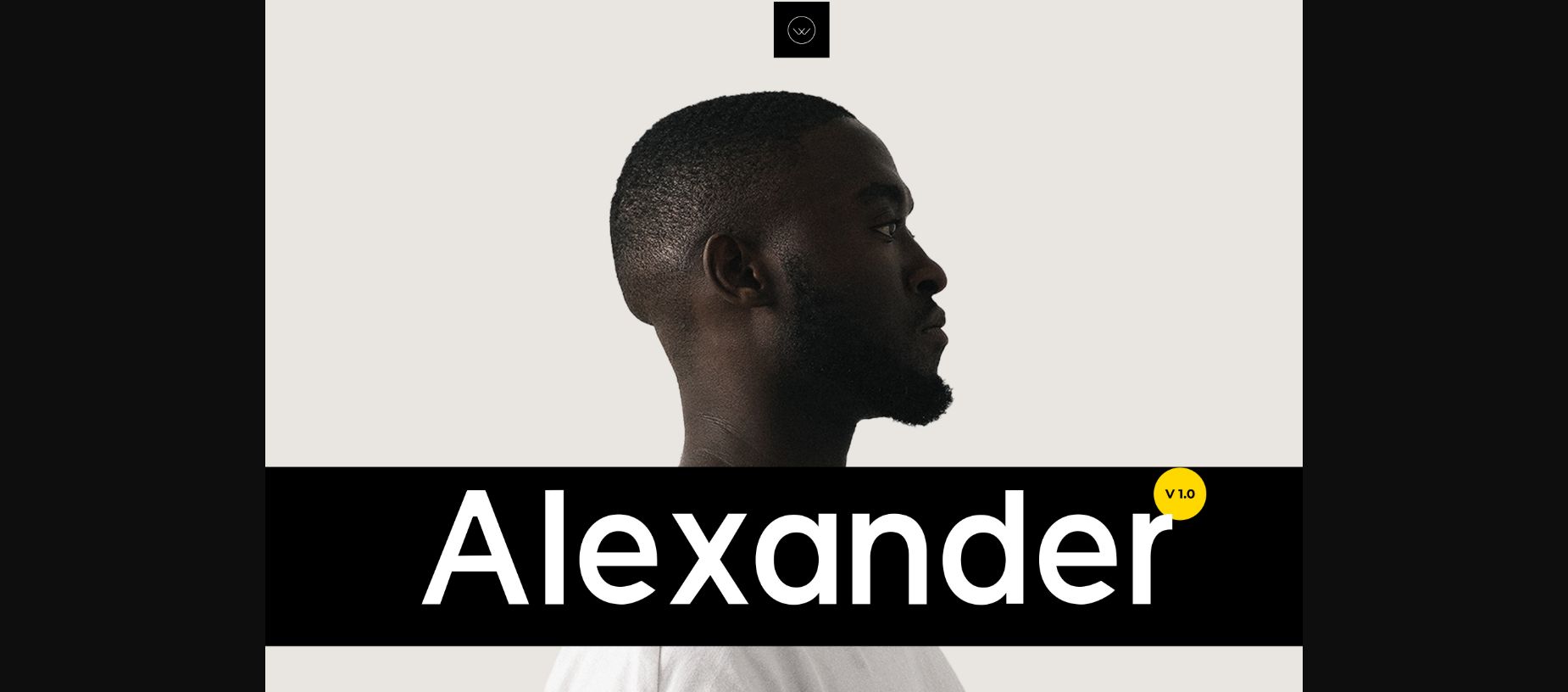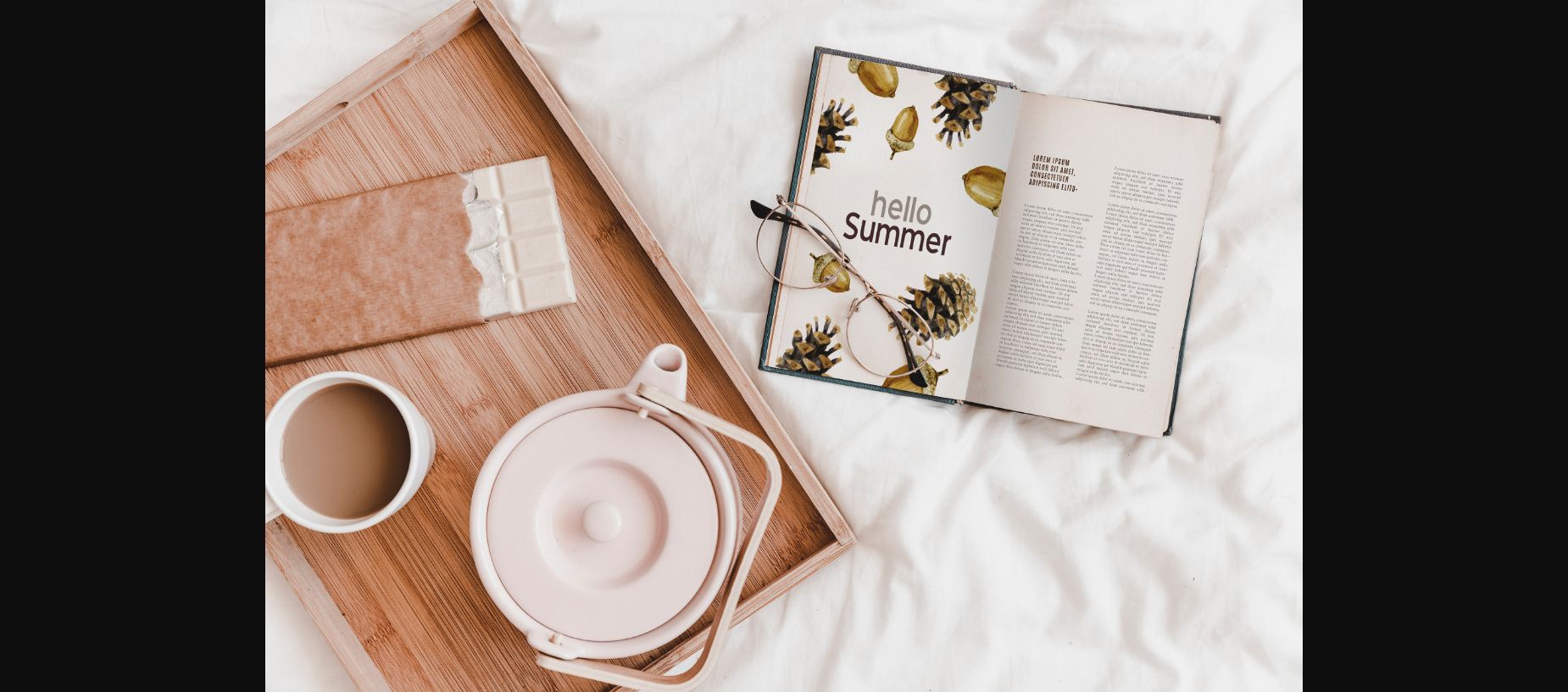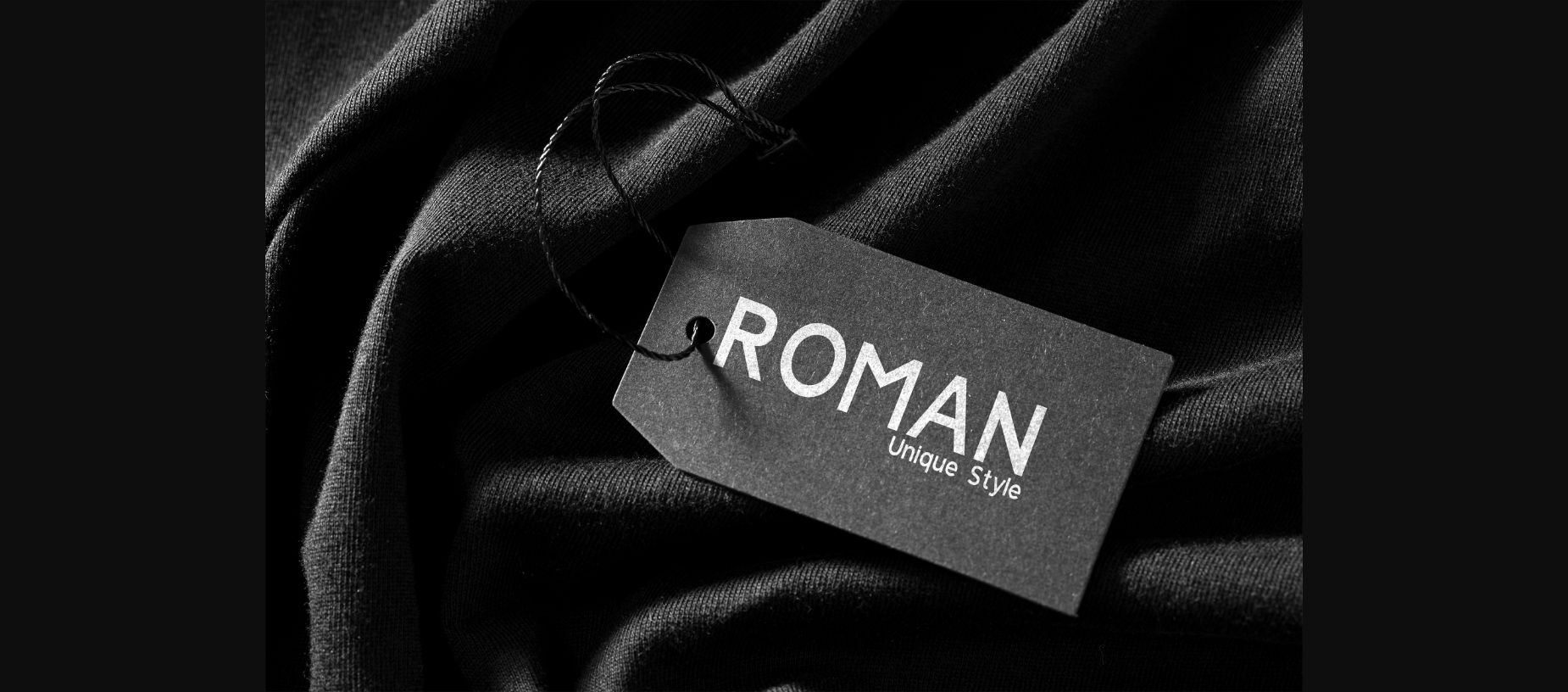
About Alexander Font
The Alexander font is a unique and elegant typeface that exudes a sense of sophistication and refinement. It is characterized by its clean lines and graceful curves, making it visually appealing and pleasant to read. The letters have a slightly elongated form, giving the font a sense of verticality and balance. Each character is meticulously crafted, showcasing attention to detail and precision. The Alexander font is versatile and suitable for various design projects such as logos, headings, and invitations. Its timeless aesthetic and classic charm make it a popular choice among designers who aim to add a touch of elegance to their creations.